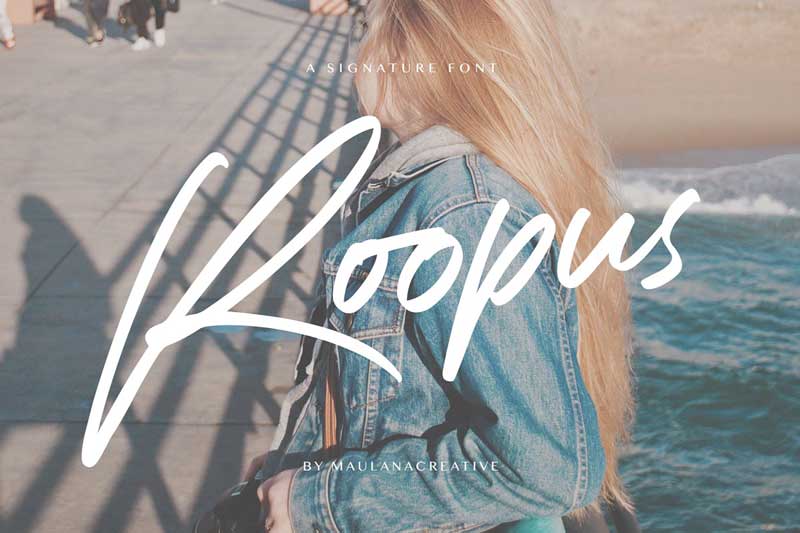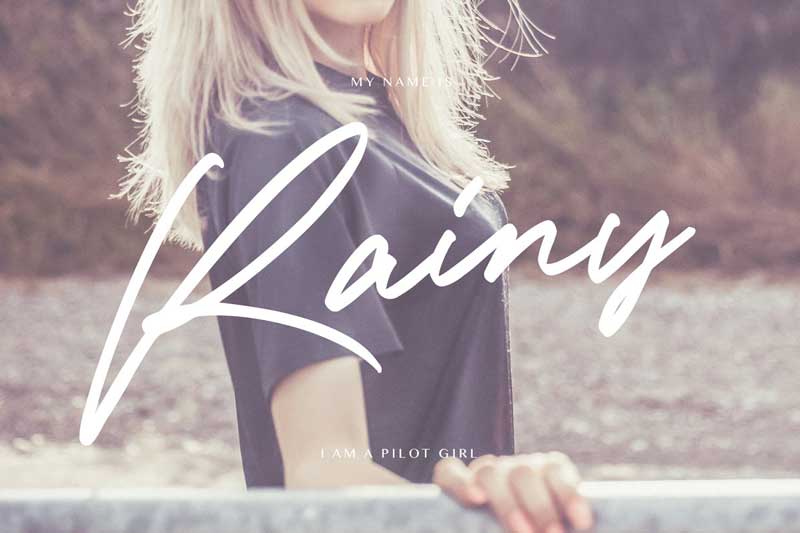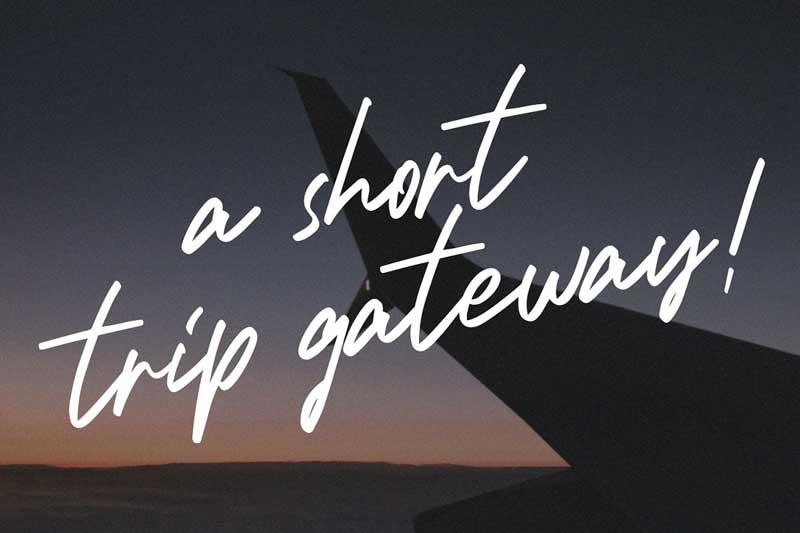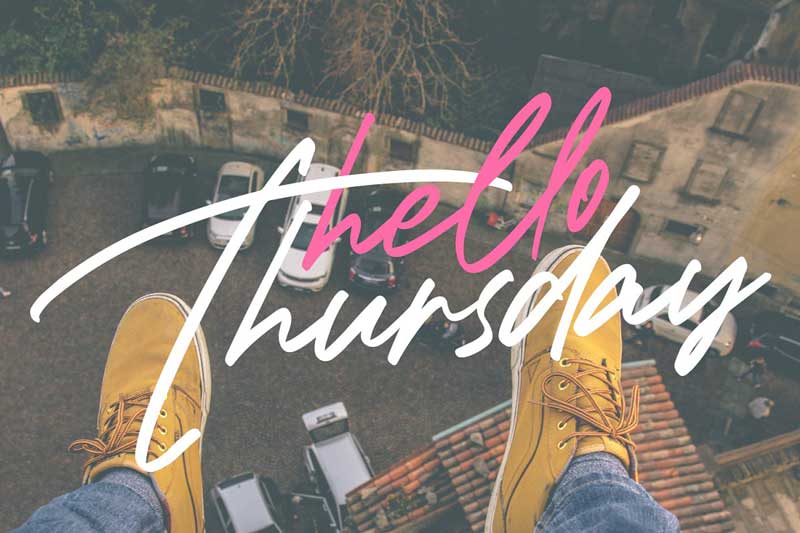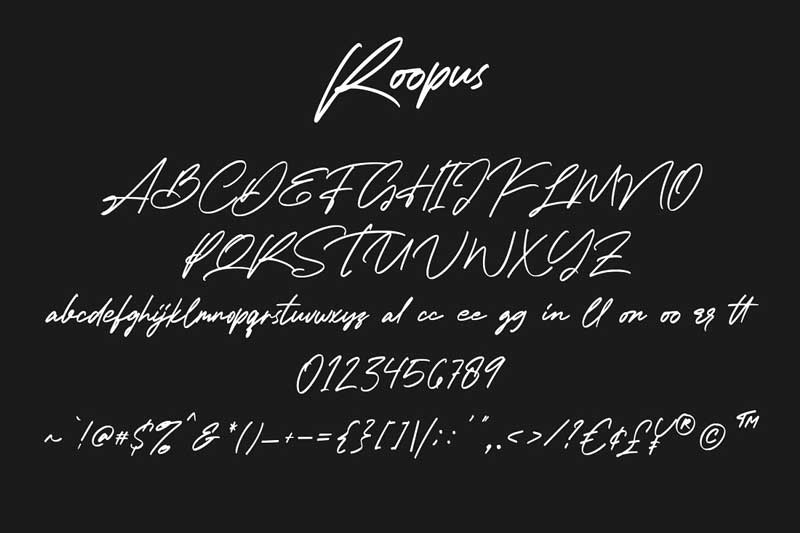
Give your designs an authentic handcrafted feel. “Roopus” is perfectly suited to signature, stationery, logo, typography quotes, magazine or book cover, website header, clothing, branding, packaging design and more.
• Ligatures
• Multilingual Support